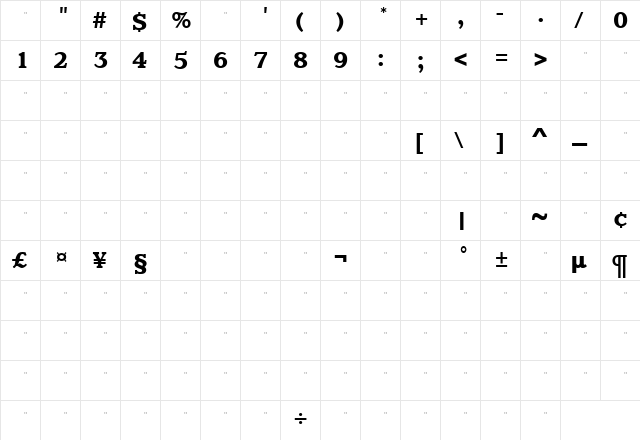
ClaremontBoldTab Roman
Design Context for ClaremontBoldTab Typeface
ClaremontBoldTab offers clean, dependable letterforms without strong stylistic allegiance, making it a practical choice for designers who need flexibility. The heavy weight commands attention and anchors typographic hierarchies.